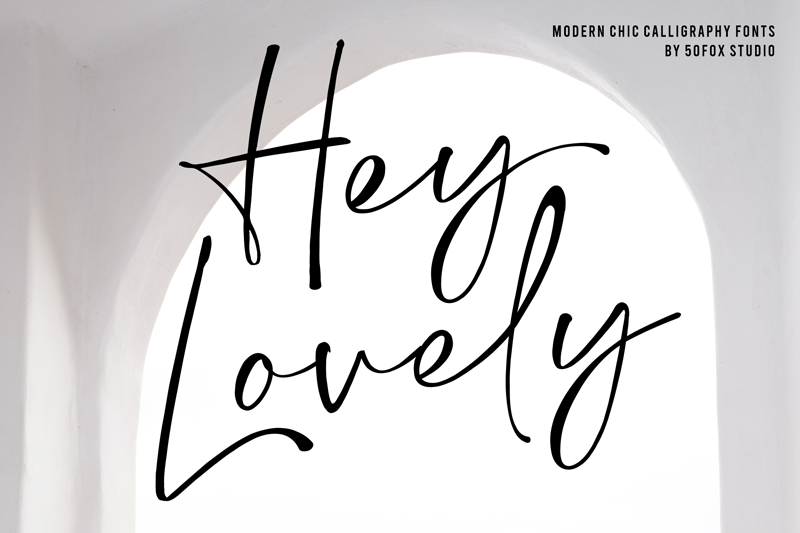
Hey Lovely! Just add ++ before or after your typing to access the swashes. Please try to copy / paste this in the box above. ++serendipity++ ++love++ Hey Lovely! A modern calligraphy of wet ink with quick strokes. It's perfect for bringing a casual style to your design projects. Hey Lovely Fonts has ligatures & alternative characters. This Font is great for logo, printed quotes, badge, insignia, packaging, headline, poster, t-shirt/apparel, greeting card, and wedding invitation, & etc. ---- By installing or using this font, you are agree to the Product Usage Agreement: 1. This font is ONLY FOR PERSONAL USE purposes. 2. NO PROMOTIONAL & COMMERCIAL USE ALLOWED 3. For CORPORATE USE you have to purchase CORPORATE LICENSE � Here is the link to purchase Commercial License: https://50fox.com/product/hey-lovely-chic-calligraphy/ � If you need a custom license, please contact us at hello@50fox.com WANT TO SEE MORE STYLISH FONTS OR FREEBIES? Please check our store https://50fox.com/ Best regards, 50Fox Team ----------------------------------------------------------------------------------------------- Note: Dengan meng-install font ini, anda dianggap mengerti dan menyetujui semua syarat dan ketentuan penggunaan font dibawah ini: More... |